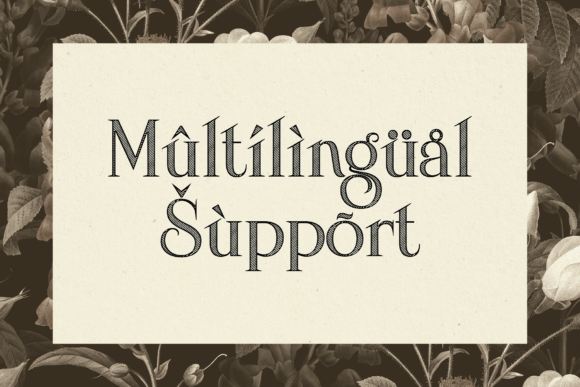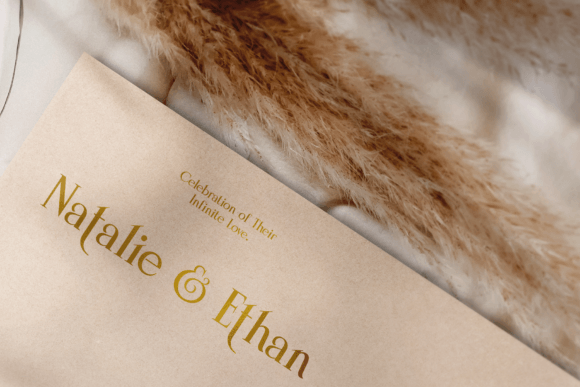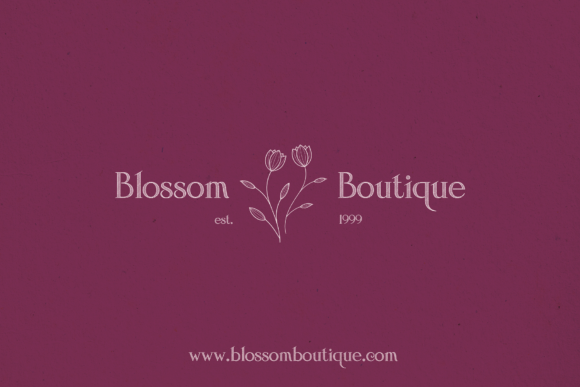
Introduction to Noble Serenity Font
As a designer, have you ever found yourself stuck on a project, struggling to find the perfect font to bring your vision to life? You’ve scrolled through countless options, but nothing seems to capture the essence of your creative idea. That’s where the Noble Serenity Font comes in – a game-changing design resource that will elevate your typography and leave a lasting impression on your audience.
Imagine a font that exudes elegance and sophistication, yet remains approachable and refined. The Noble Serenity Font is that and more, offering a harmonious blend of clean lines, delicate curves, and perfectly balanced proportions. Whether you’re working on a luxury branding project or creating a wedding invitation with a transparent background, this high-quality font is sure to make your designs stand out. And the best part? It’s available for free download, making it an invaluable resource for designers of all levels.
Key Features of Noble Serenity Font
- Unique, elegant design perfect for creative projects and designs
- High-quality, scalable font suitable for various design resources and applications
- Features a sophisticated, serene aesthetic that is perfect for luxury branding and high-end design projects
- Can be easily customized and styled to fit the needs of your specific creative project or design resource
Honest Review: Noble Serenity Font
As a designer, I’m always on the lookout for high-quality design resources that can elevate my creative projects. The Noble Serenity Font is one such find, and I’m excited to share my honest review with you.
- ✨ Elegant and refined aesthetic that’s perfect for luxury brands and high-end projects.
- ✨ High-quality design that’s optimized for both print and digital use.
- ✨ Transparent background, making it easy to customize and integrate with your design.
- ⚠️ Limited character set, which may not be suitable for projects requiring extensive text.
Overall, I’m impressed with the Noble Serenity Font’s elegant design and high-quality feel. While it may have some limitations, it’s an excellent resource for designers working on luxury or high-end projects. I’d definitely recommend it to anyone looking for a sophisticated font for their next creative project.
The Noble Serenity Font is ideal for creative projects, such as typography designs, logos, and branding materials. It’s also suitable for design resources, like infographics, brochures, and business cards. With its high-quality design and transparent background, this font is perfect for designers who want to add a touch of elegance to their projects.
Pacifico is a high-quality, elegant script font that can be used for a variety of creative projects, including wedding invitations and luxury branding. It is a great design resource for those looking for a sophisticated and refined look. Pacifico can be used with a transparent background to create a sense of depth and dimension.
Compared to Noble Serenity Font, Pacifico has a more relaxed and casual feel, making it suitable for a wider range of design applications.
To use the Noble Serenity Font with a transparent background, you’ll need to use a design tool that supports vector graphics and transparent layers. Popular options include Adobe Illustrator, Sketch, and Inkscape. Simply place the font on a transparent background layer, and you’re good to go!